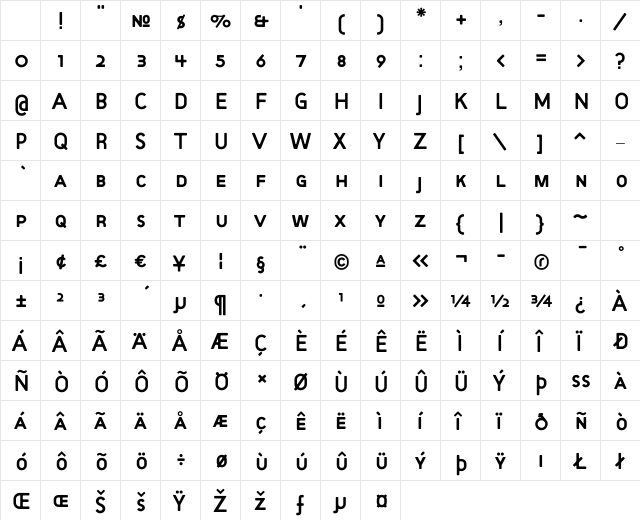
TargetSmall Caps Regular Free Font
TargetSmall Caps Regular
Design Context for TargetSmall Caps
TargetSmall Caps is a composed and adaptable typeface that performs quietly and consistently across a wide range of design contexts.